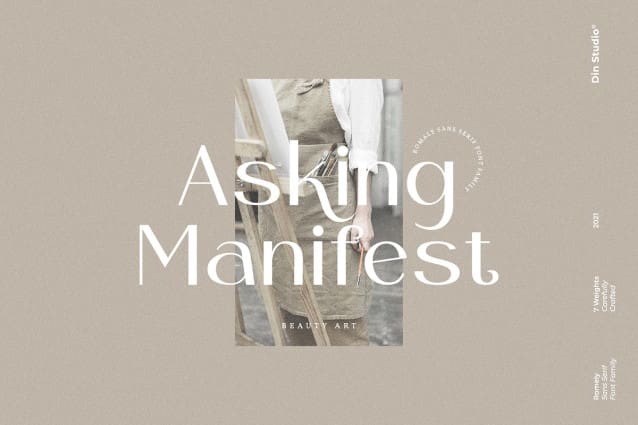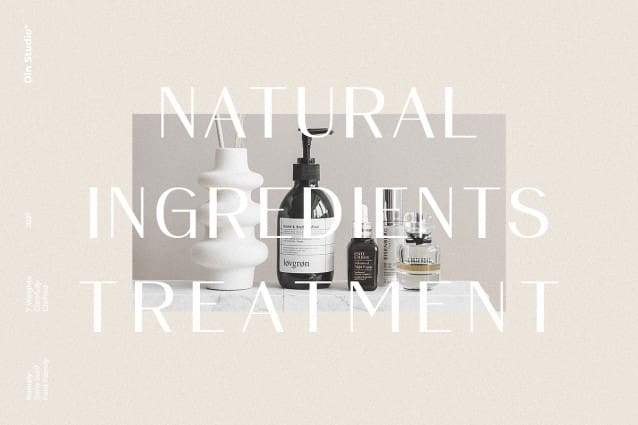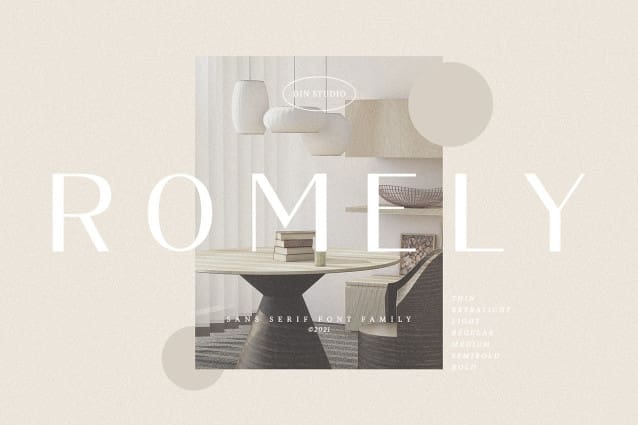
Romely Font
Romely Font – A Sans Serif Font Family. With this package you will get many font to create more engaging content and inspire your audience and clients. Connect with your audience and stand out in the crowd as these fonts will show you that you and your works deserve their attention. Show your boldness as you make the world see of the elegant details put together in your projects!